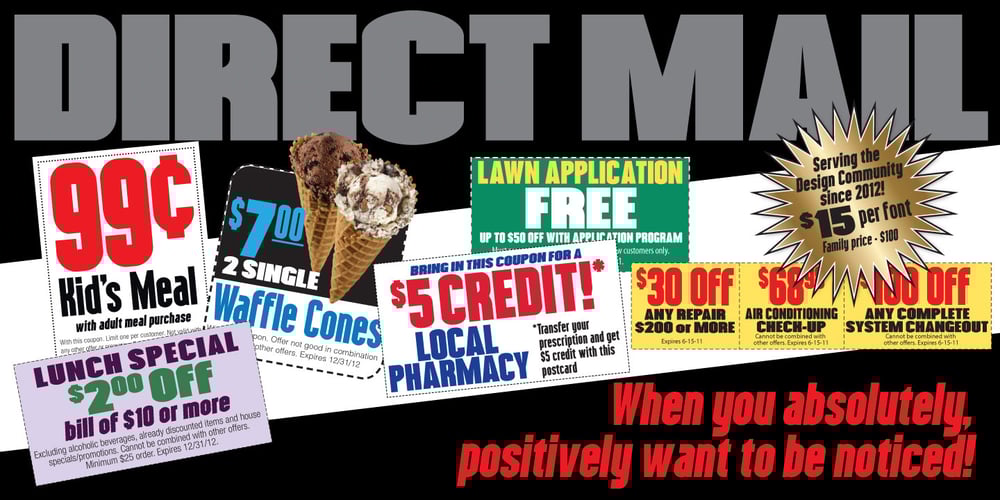
Direct Mail
Direct Mail font
Direct Mail Font Family was designed by Dawn Lewandowski and published by Partnrz. Direct Mail contains 8 styles and family package options. Direct mail designers rejoice! Finally, a font family made just for you. Created to be as in-your-face as possible: for use as a primary headline; for dates and phone numbers; and for coupon heads and price points. Tired of kerning numbers for your coupons and prices? Then you’ll love this font! All of the kerning has been done for you. (No more spacey 1’s!) Designed for a tight kern – just track it in on larger sizes. Instead of standard weights, this font was designed to fit different width needs. Have a long headline, but your client wants it in one line and tall? Use the extra-condensed. Need something really bold for a phone number or price point, but you don’t have much height available? Use the fat. And there are two more widths for those in-betweens. And to top it off – you can get them all in an oblique as well.